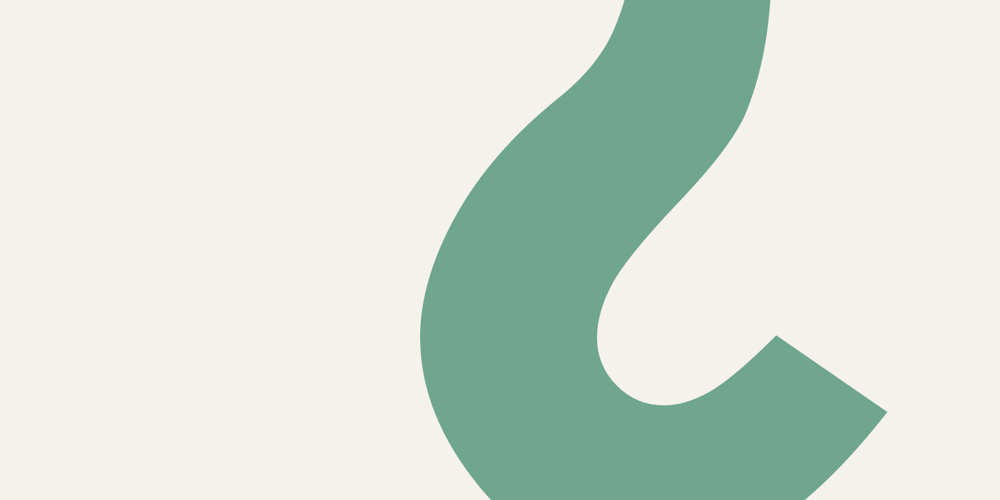
Monotype News Gothic
Monotype News Gothic font
Monotype News Gothic Font Family was designed by Morris Fuller Benton and published by Monotype. Monotype News Gothic contains 14 styles and family package options. Similar in design to Franklin Gothic, News Gothic was one of a number of sans serif faces manufactured by American Type Founders in the early years of the twentieth century. Initially cut as a light sans, heavier versions were made in the 1940s and 50s along with some condensed weights. The News Gothic font family offers an uncomplicated design that is well suited for use in newspapers and magazines for headlines and in advertisements.